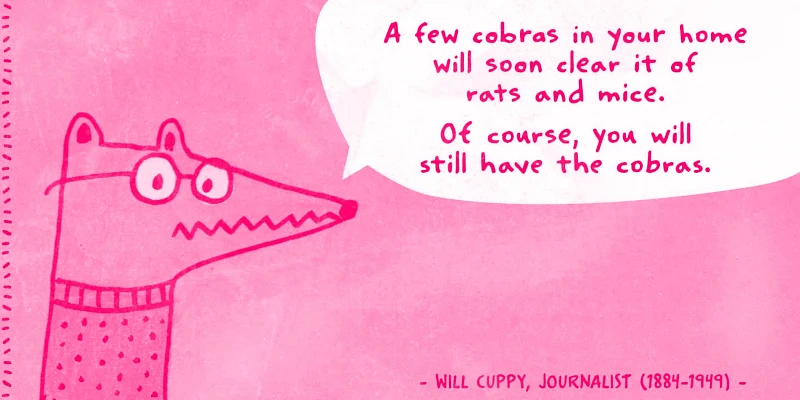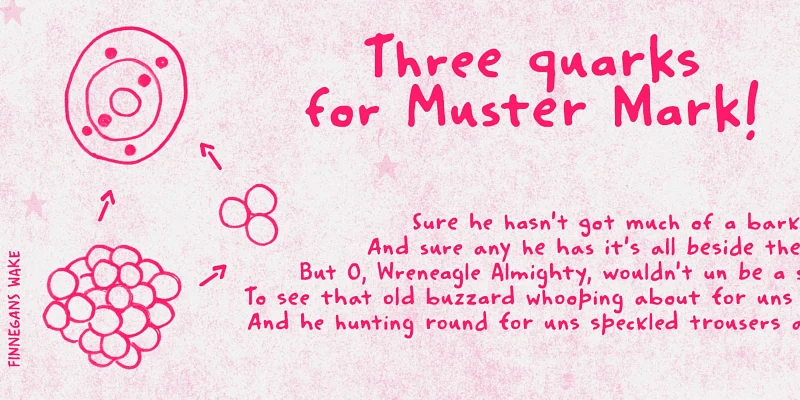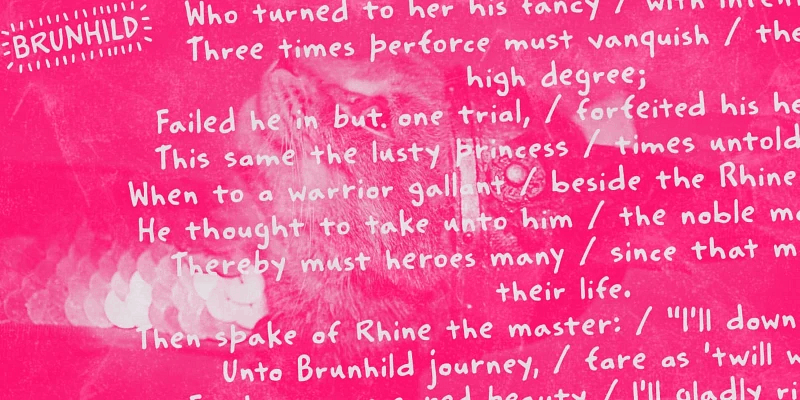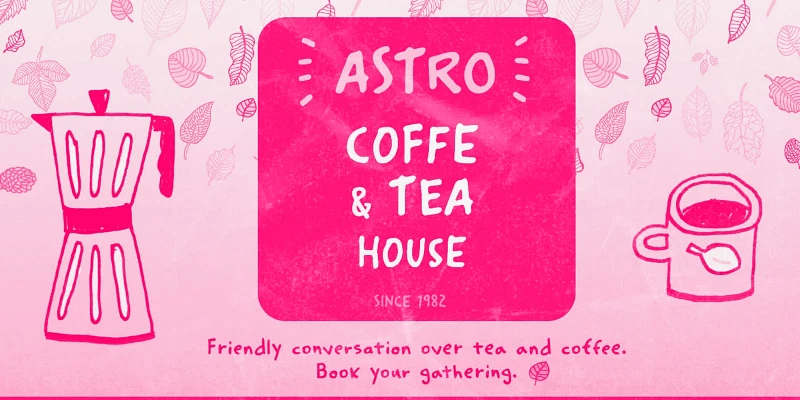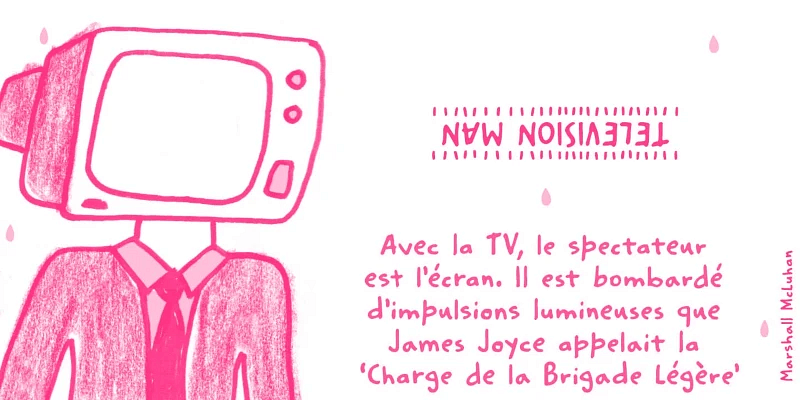
“Minute is a lively handwritten font created using a felt-tip pen. Designers will find it easy to achieve a naturally casual tone and hand-crafted look using the various alternates. Don’t miss the shining or blinking effect! Words feel spontaneous and relaxed, like notes jotted on a sketchbook page. You get the sense that it was meant for a birthday card or something personalized, such as homemade jellies and jams. Everything will look great in this Minute! You bet!
Designed by Erica Jung and Ricardo Marcin. Minute is a font family from PintassilgoPrints—a member of The Type Founders collection. For additional license options like app, enterprise, multi-user, and self-hosted web, visit PintassilgoPrints.”